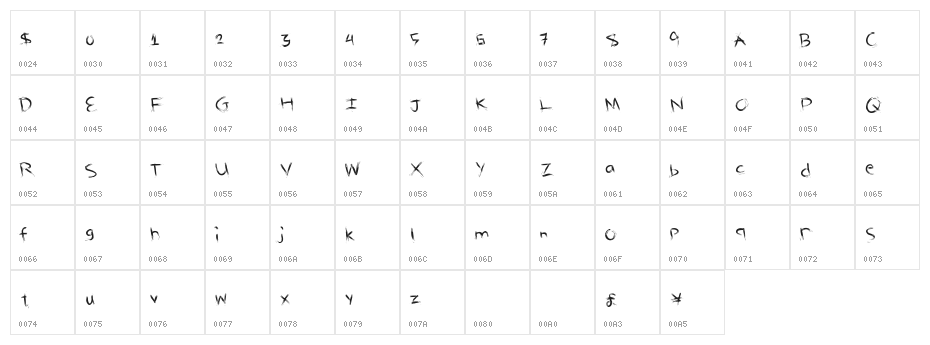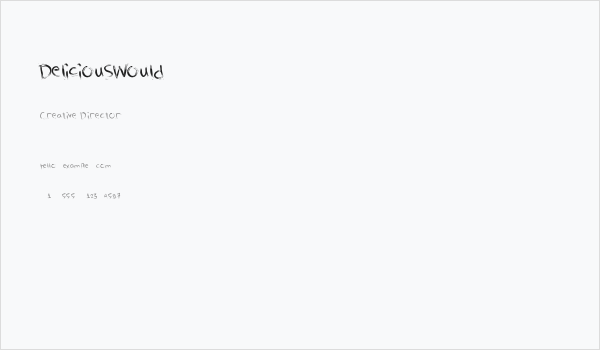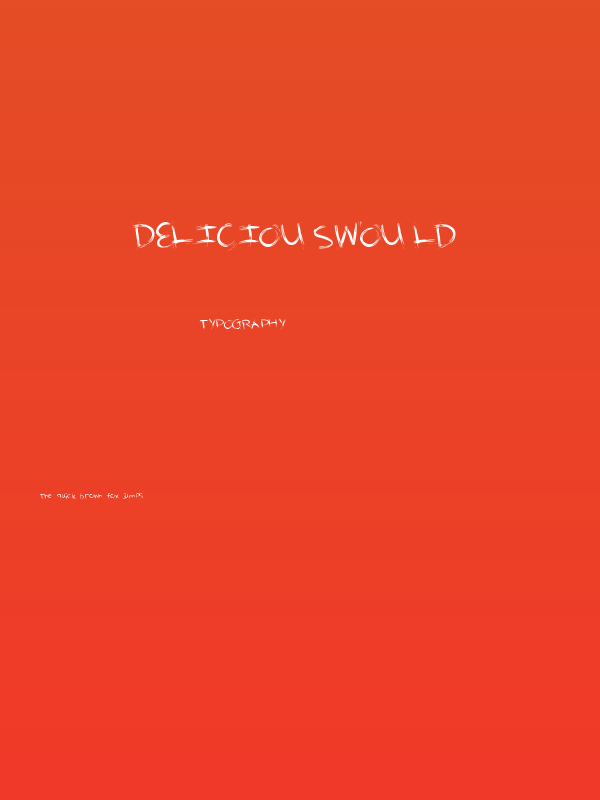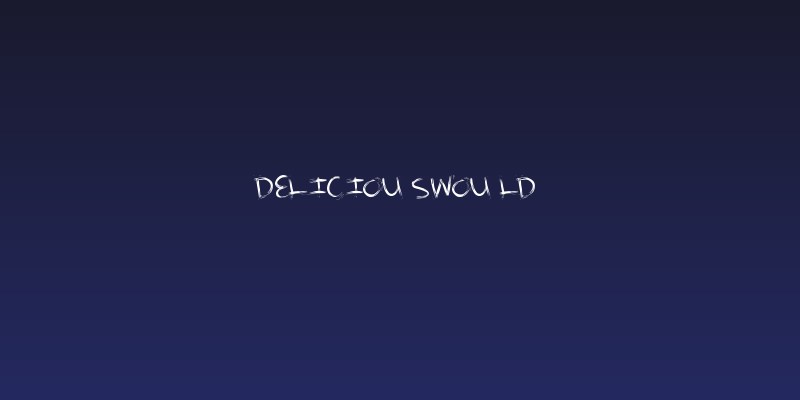
DeliciousWould Font
DeliciousWould Description
This font features a dynamic and edgy design, characterized by its rough, brush-like strokes that give it a hand-drawn appearance. The letters have an irregular, distressed look, with varying thicknesses and a slightly chaotic feel. This style conveys a sense of energy and movement, making it stand out as a bold choice for creative projects. The uppercase and lowercase letters maintain a consistent style, while the numerals and special characters follow the same aesthetic, ensuring a cohesive look across all text elements.
| Proposed Projects | Ideal for album covers, posters, graffiti art, and edgy branding projects. |